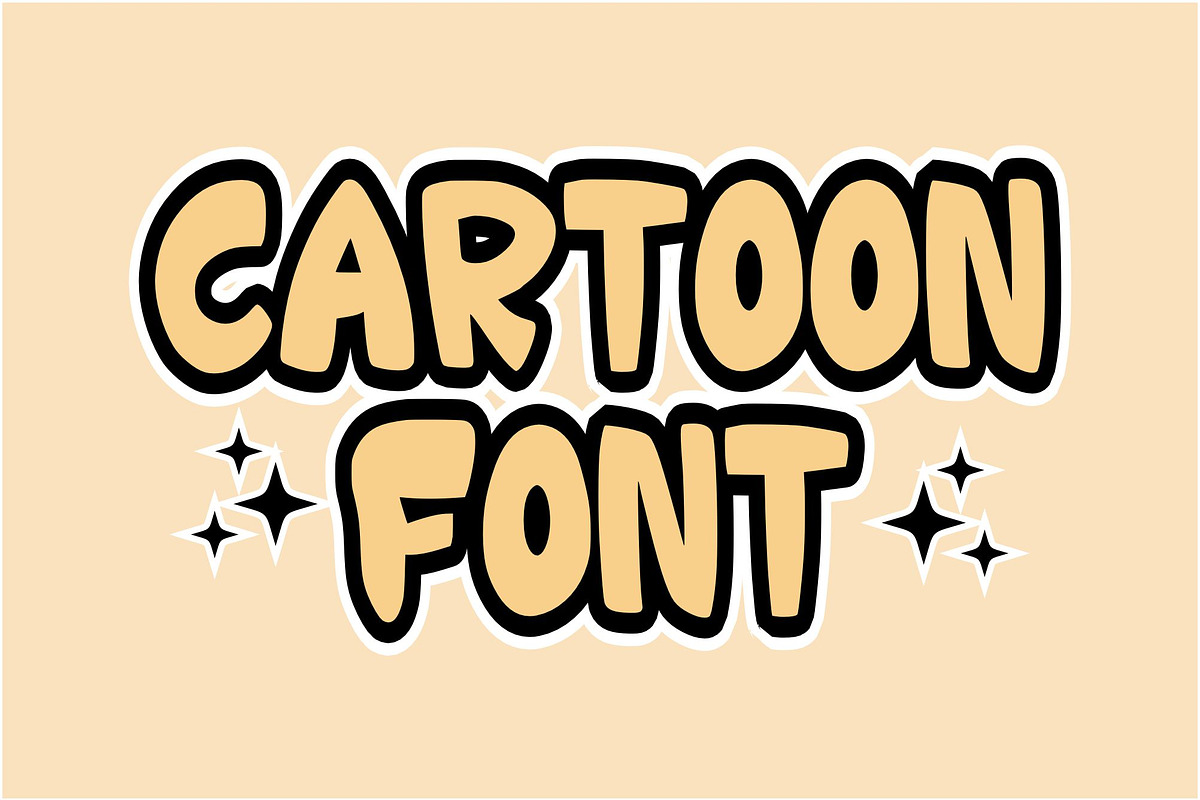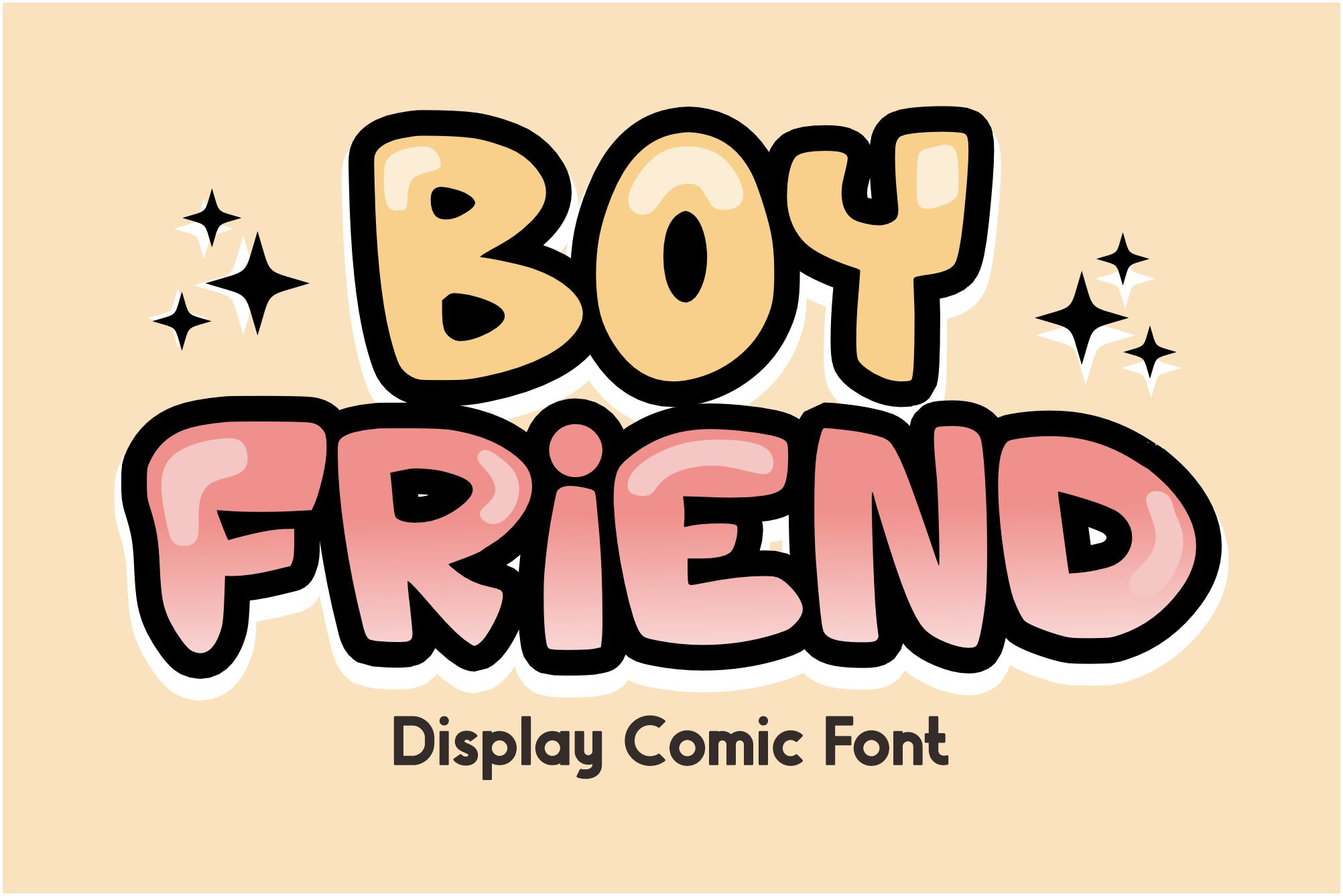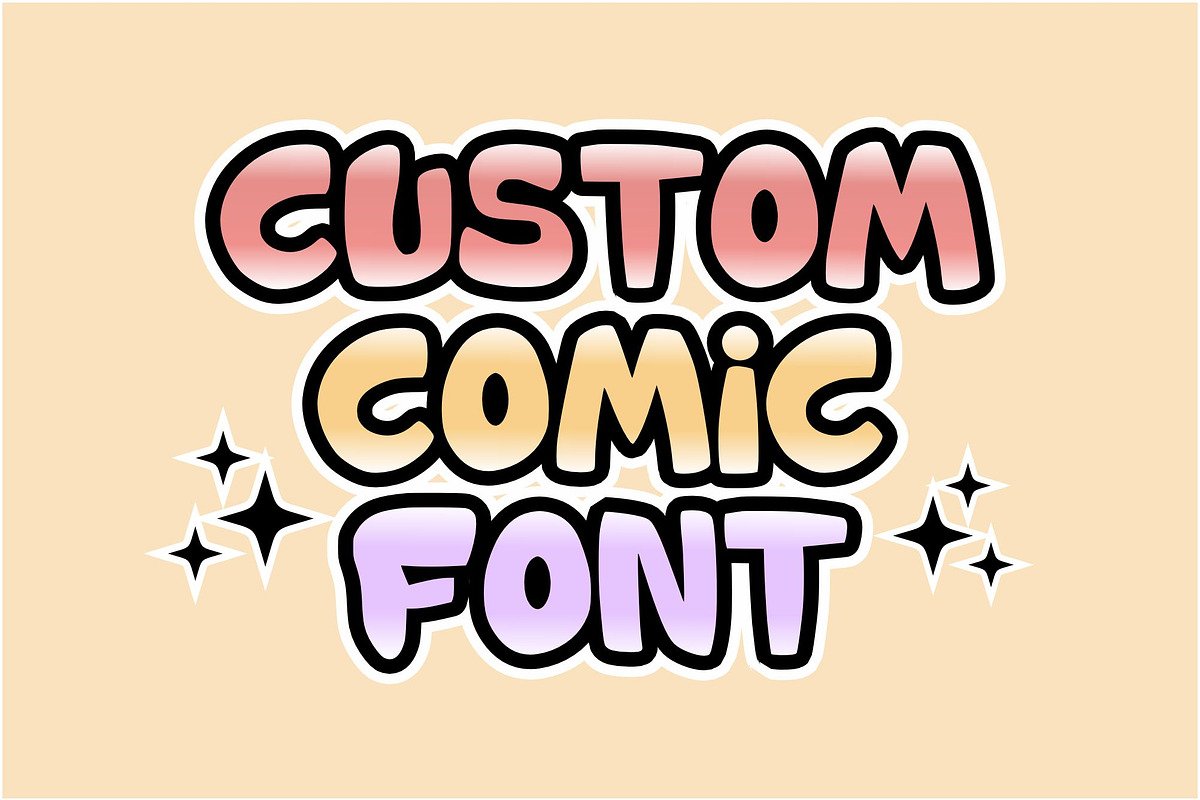
Boy Friend - Cartoon Font Types
Boy Friend is a comic font that brings fun and playfulness to your projects. With a modern style and appearance, it offers versatility for a variety of creative endeavors. Let Boy Friend add the beauty of color and whimsy to your designs, perfect for anything from invitations, stickers, comics and posters.